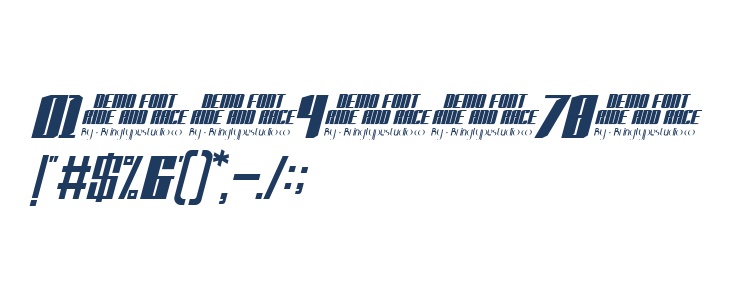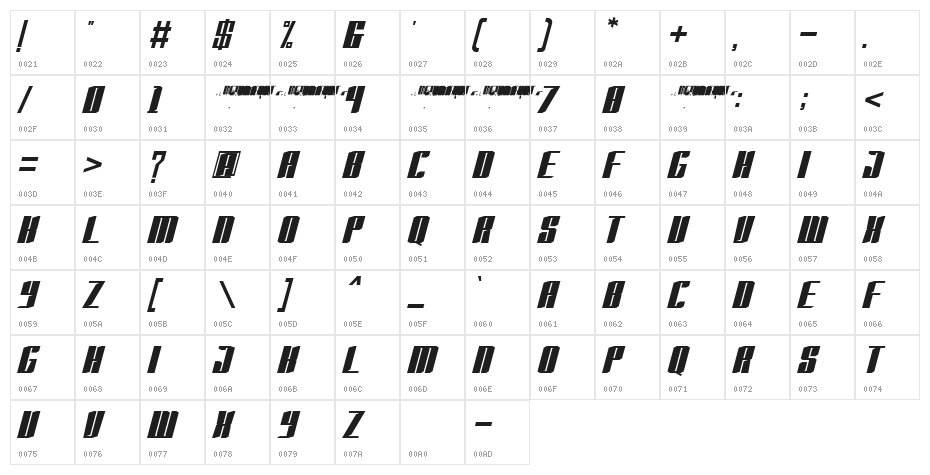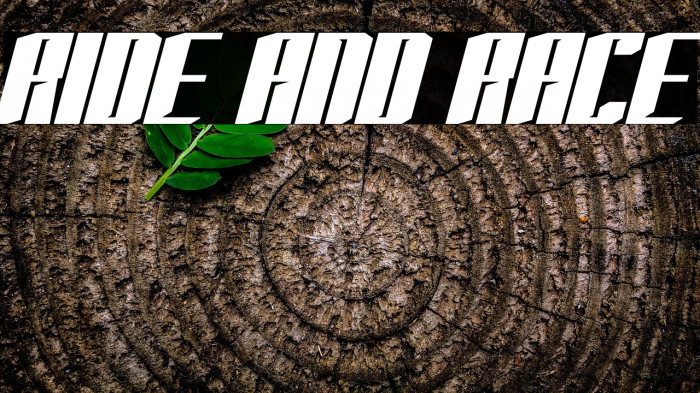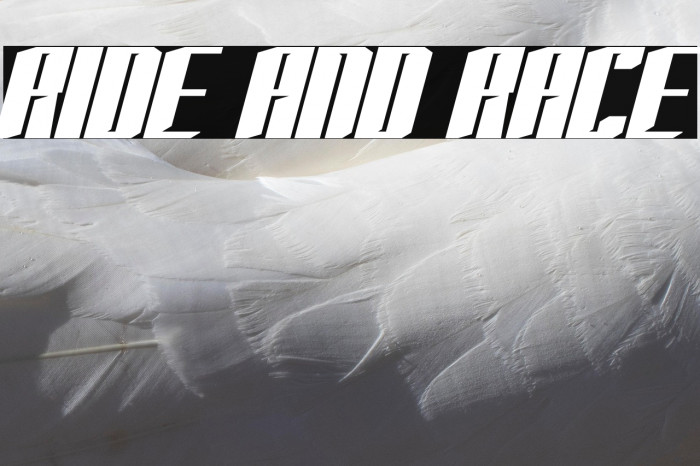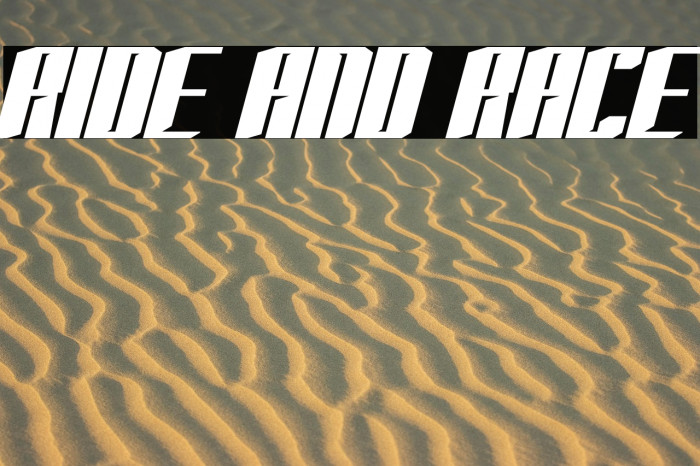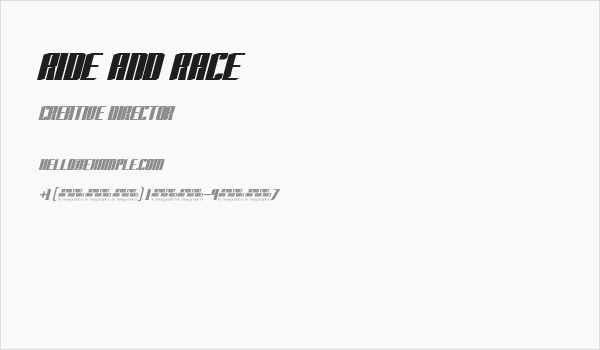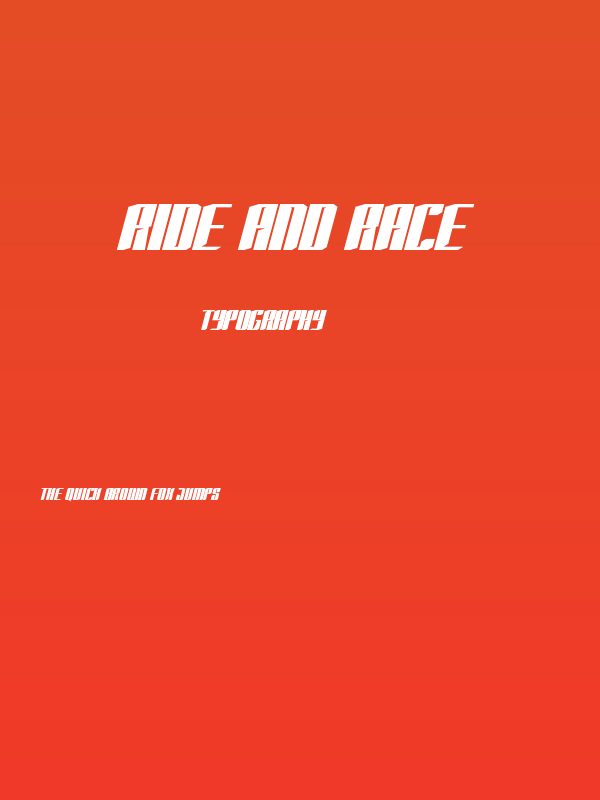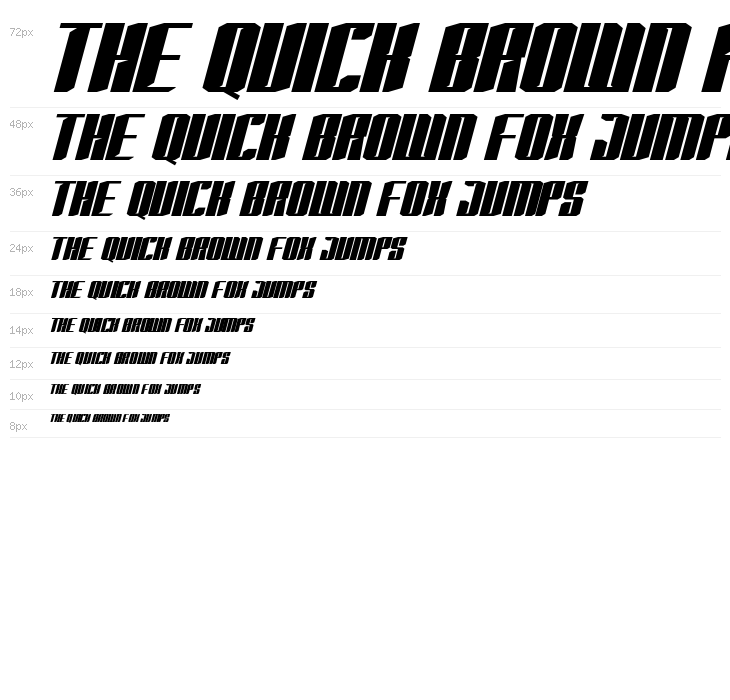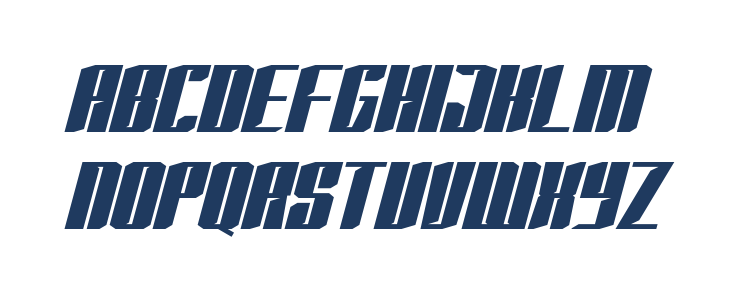
RIDE AND RACE Font
RIDE AND RACE Description
This font features a bold, angular design with a strong, dynamic presence. The characters are sharply cut, with a forward-leaning slant that conveys speed and motion. The uppercase letters are particularly striking, with wide, blocky forms that dominate the space. The lowercase letters maintain the same boldness, ensuring consistency across text. Numbers and special characters are equally robust, making this font suitable for impactful displays. The overall aesthetic is modern and aggressive, ideal for projects that require a sense of energy and power.
| Proposed Projects | Perfect for sports branding, automotive advertisements, video game titles, and any project needing a high-energy, modern look. |